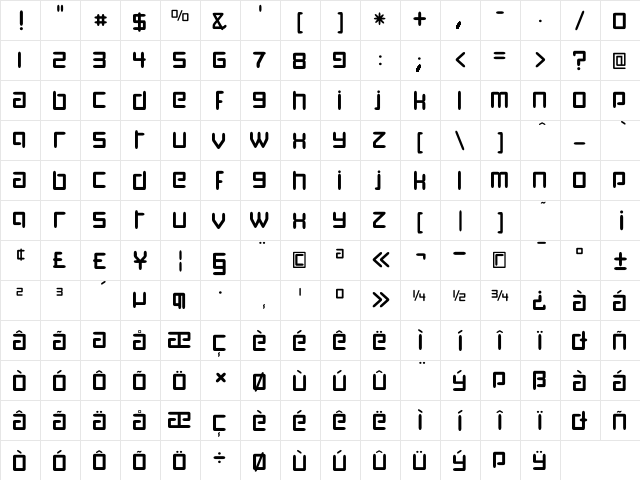
Digitalis Regular
Design Context for Digitalis Typeface
Digitalis channels digital-age aesthetics through its sharp, structured letterforms — ideal for brands that want to signal innovation.
Pro Tip: Use Digitalis in combination with a neutral sans for body text. Let it define the brand voice in headlines while keeping reading comfortable elsewhere.